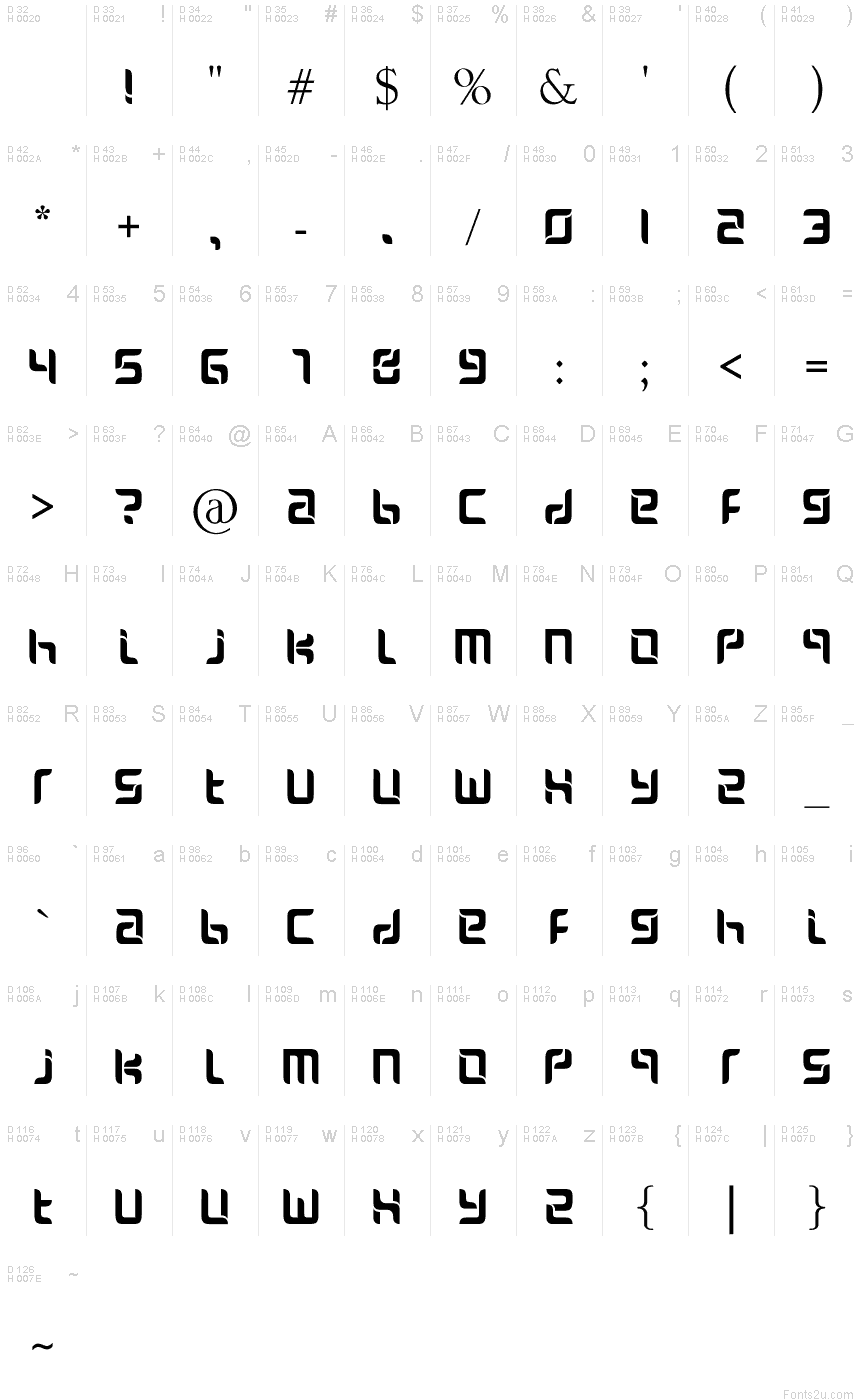
Torl Bold by Chris Johns of High-Logic.com is a free techno display font built from broad strokes, cropped joins, and tightly rounded corners. Rounded curves soften its compact, machine-cut silhouette.
Its retro-futurist construction suits electronic music posters and game title screens, especially when the lettering can become part of the interface imagery. The same smooth geometry also fits streetwear branding and packaging for gadgets, where the unusual cuts offer a recognizable product mark. It will appeal most to designers working with arcade culture, synthetic sound, or playful visions of technology.